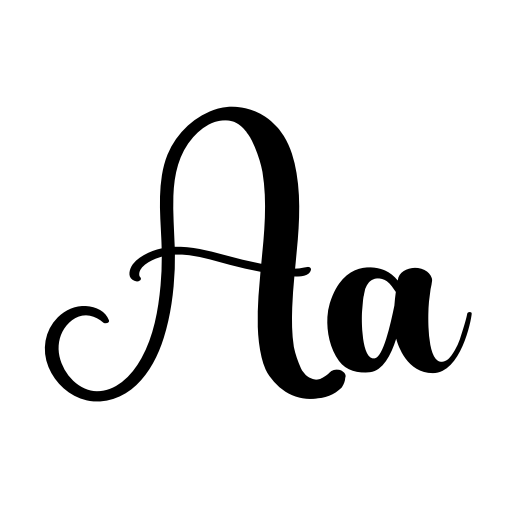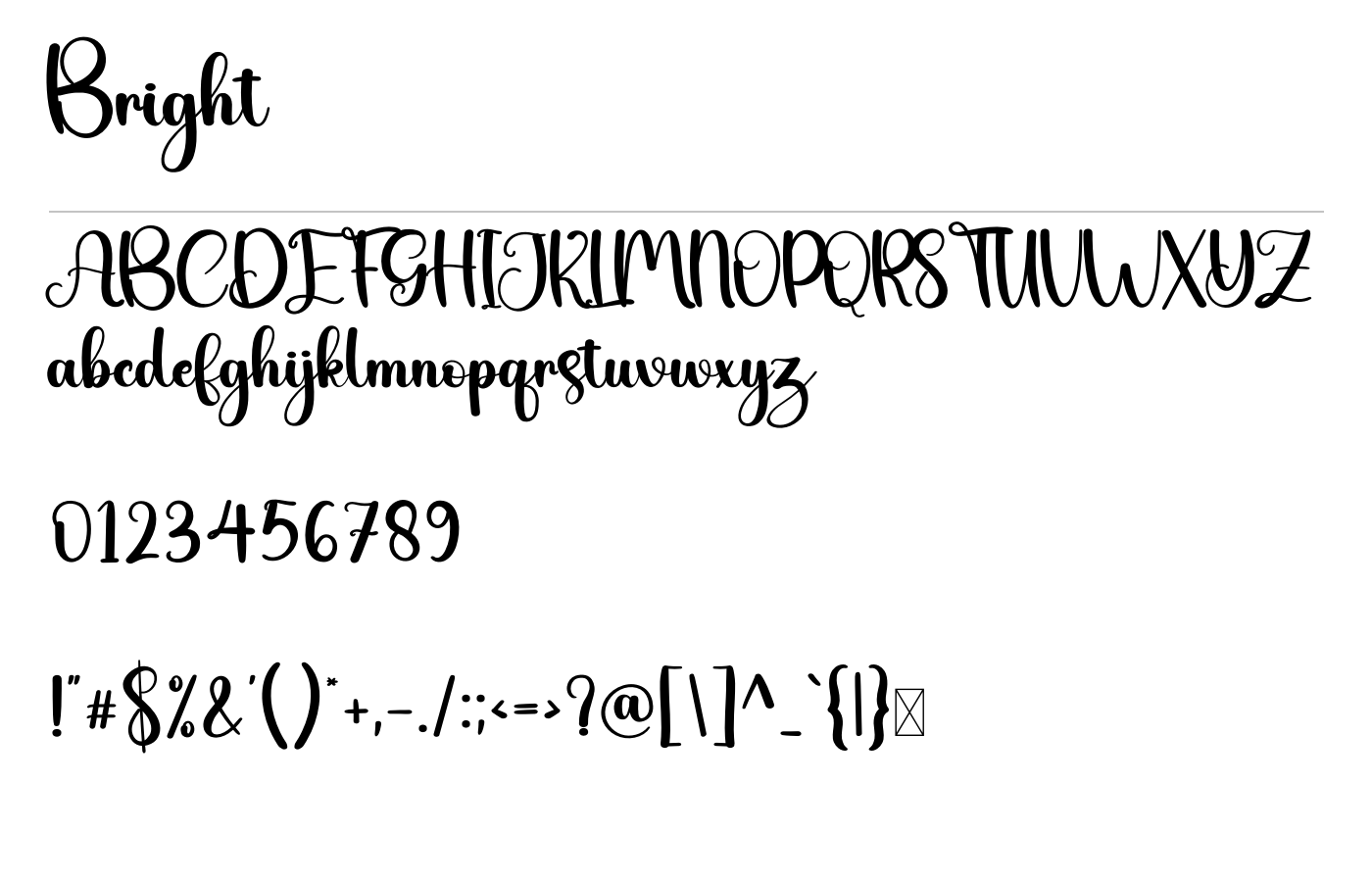
Bright Font is a playful and elegant script typeface with a medium weight and a lively, hand-drawn feel. Its tall, flowing letterforms feature charming curls and loops, making it perfect for creative branding, invitations, and decorative headlines that aim to convey warmth and personality. This font works beautifully in contexts where a friendly, artistic touch is desired without sacrificing readability.
Bright Font
About Bright Font